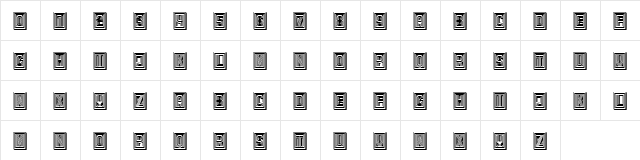
Retailer 3D Regular
Design Context for Retailer 3D Typeface
Retailer 3D is a composed and adaptable typeface that performs quietly and consistently across a wide range of design contexts.